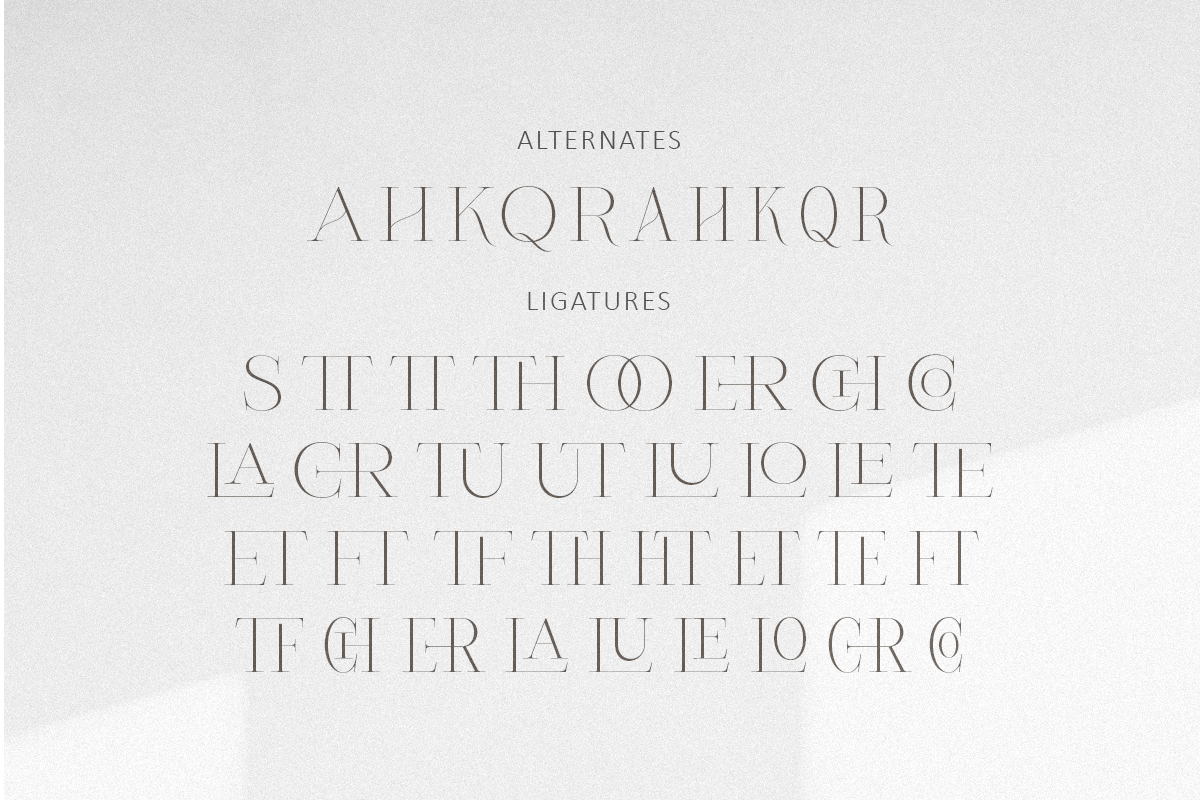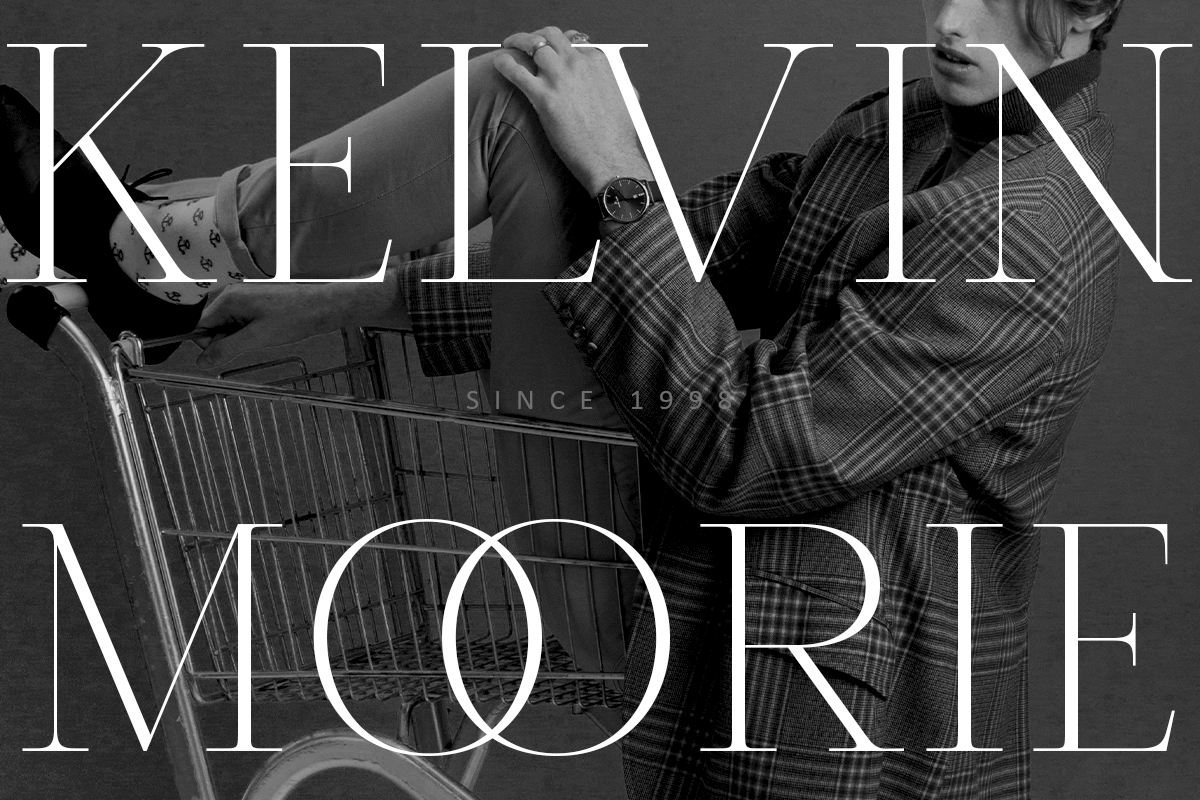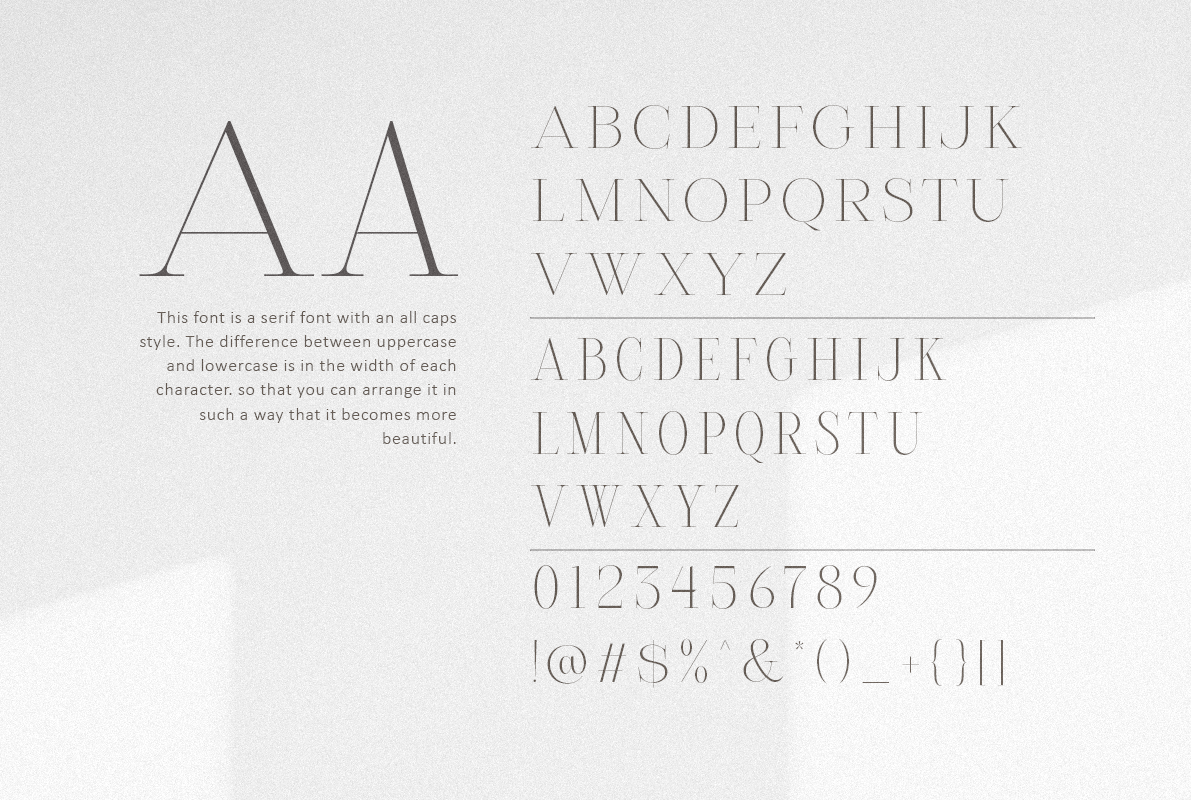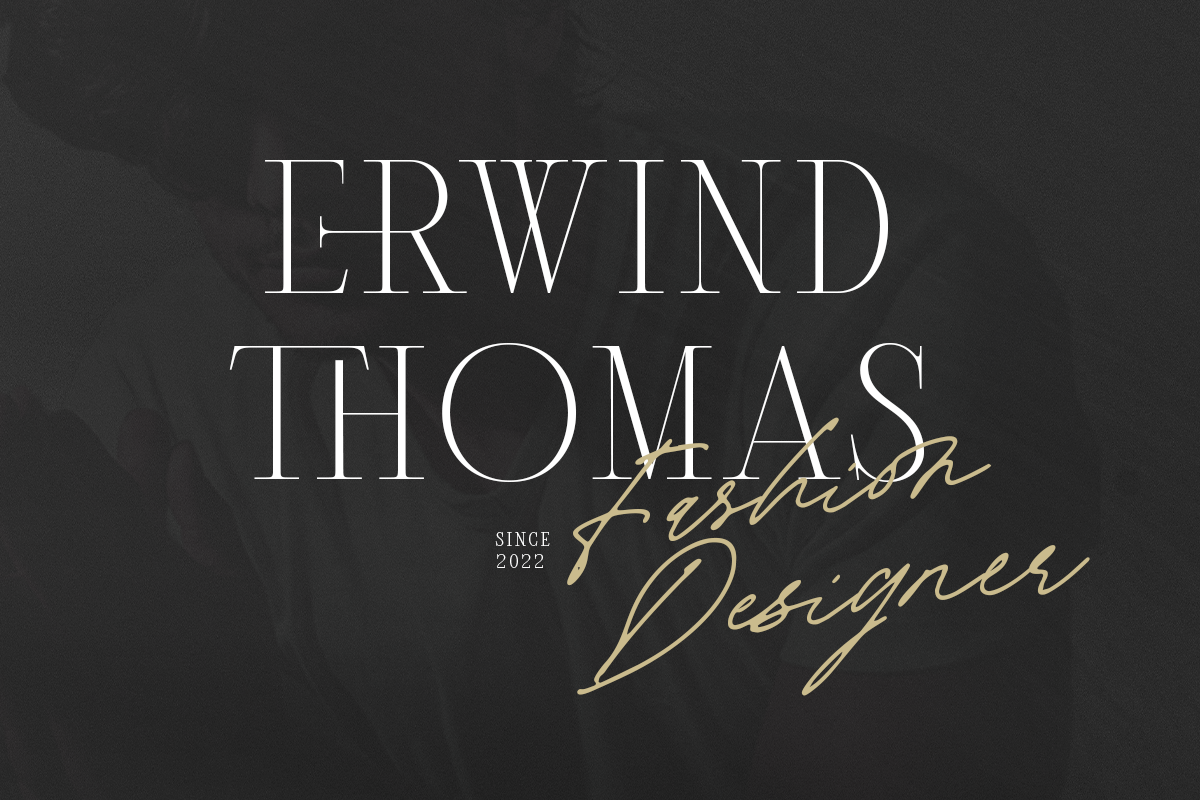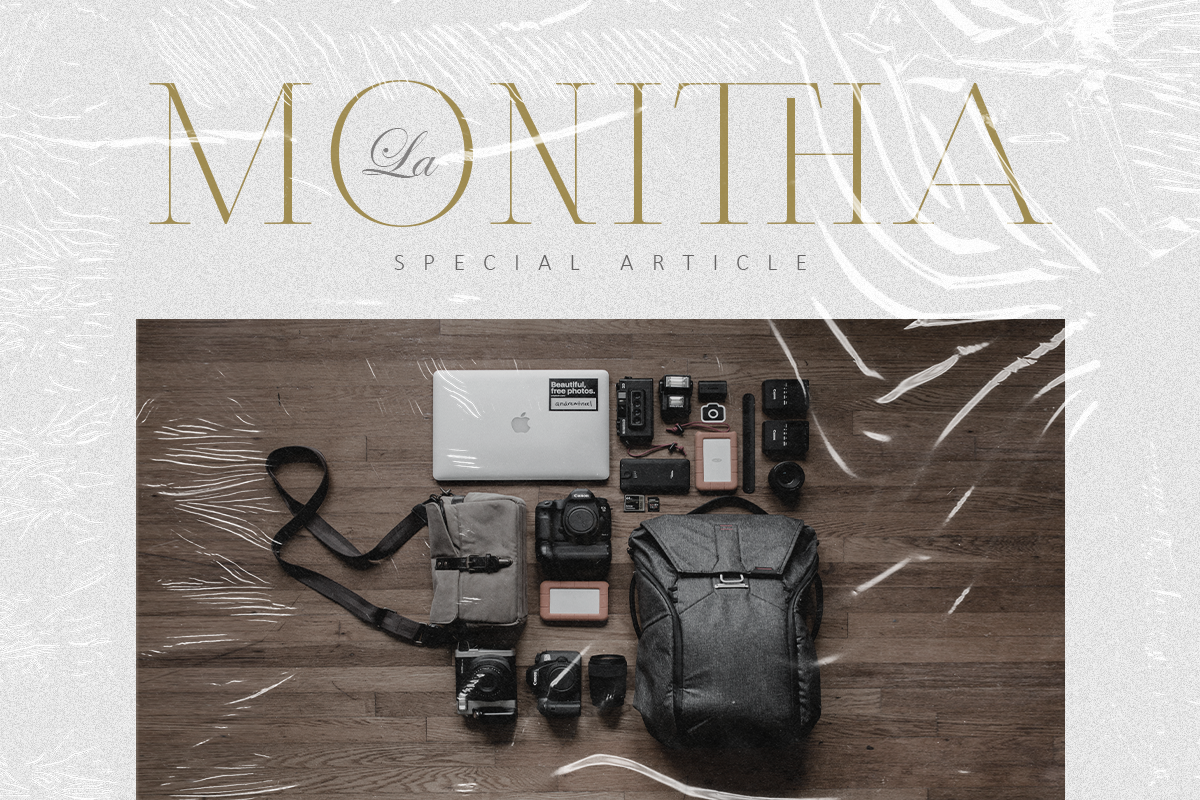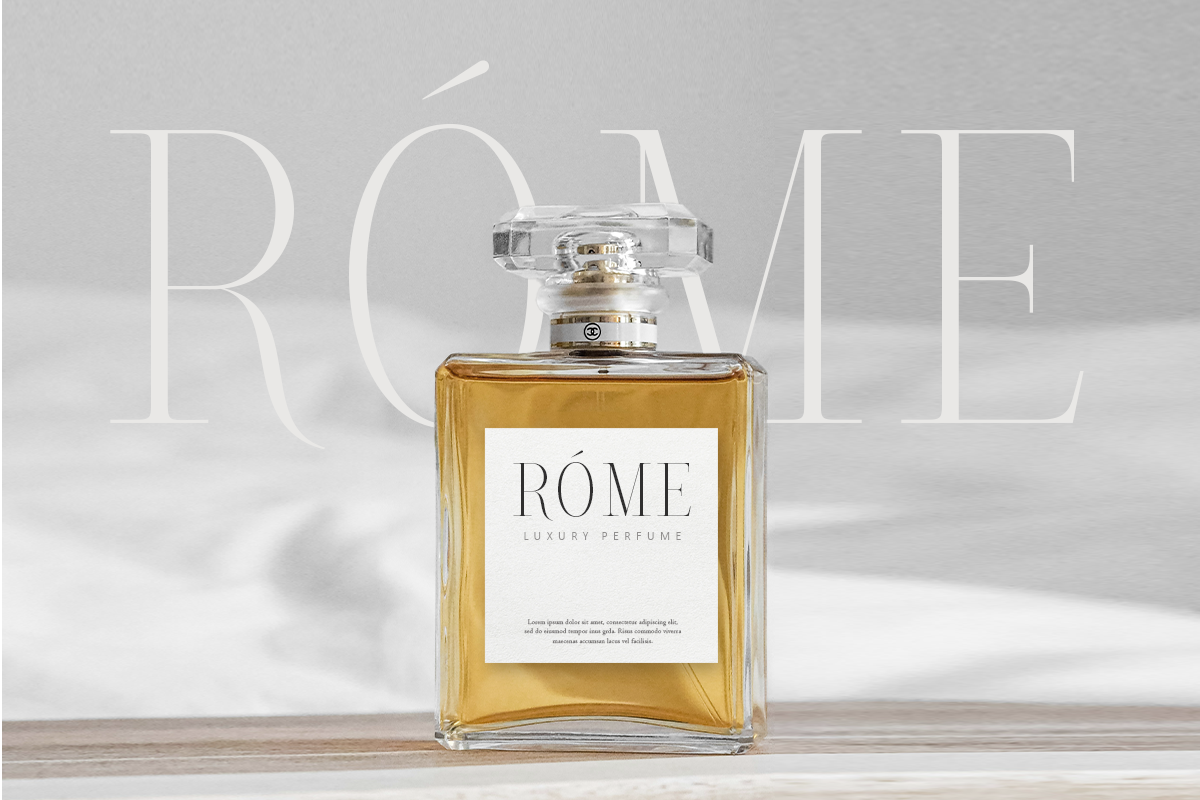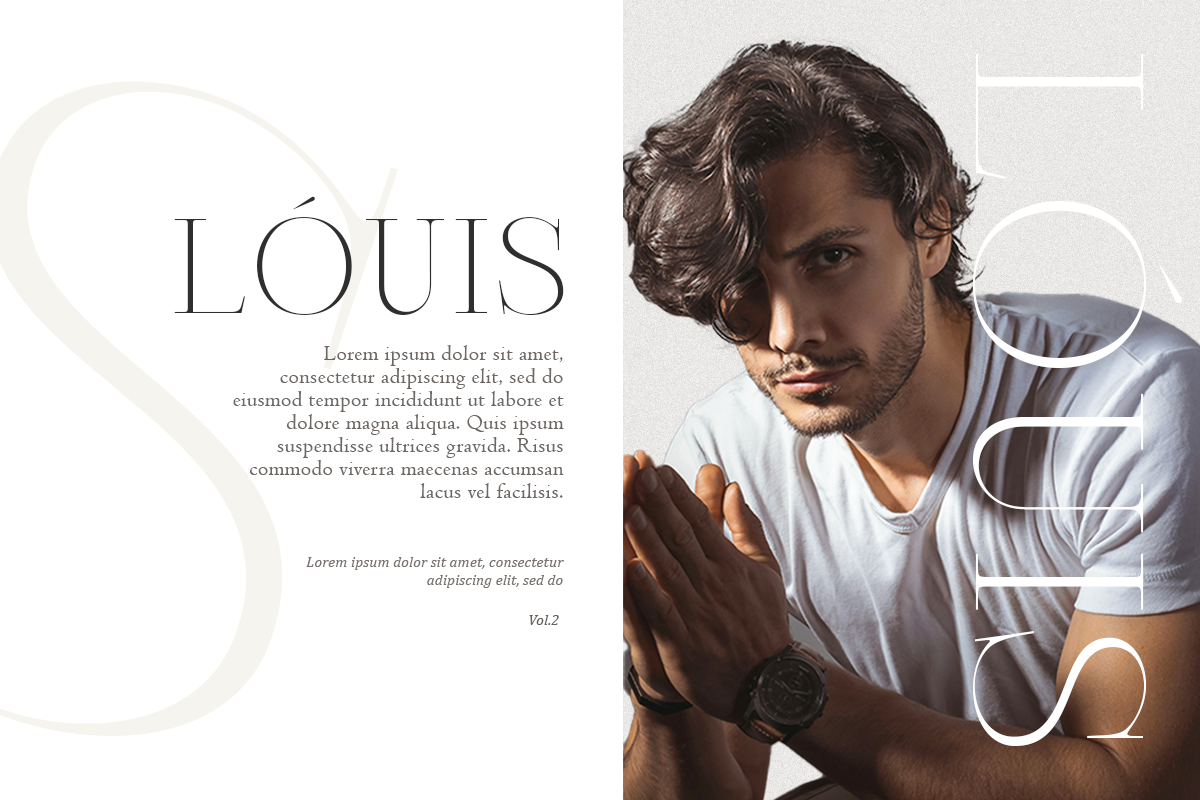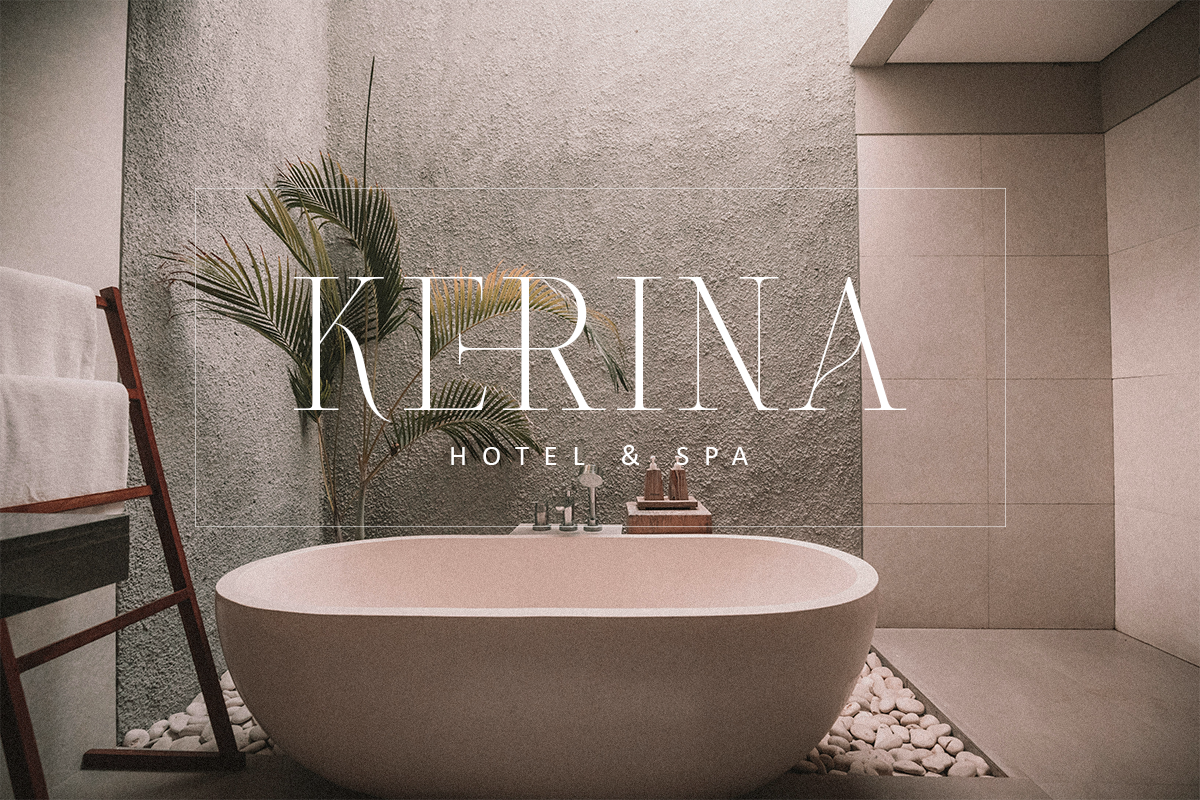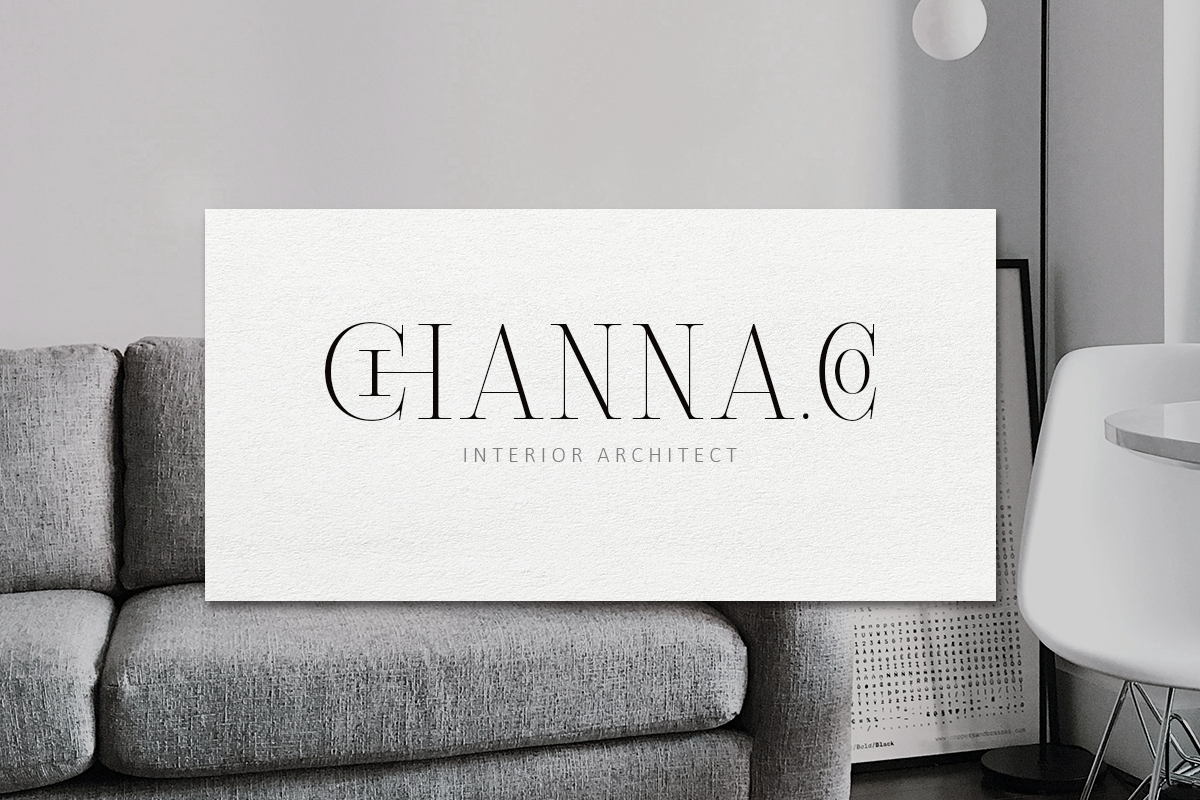
Natoure-All Caps Serif
This font is a unique and beautiful serif font with an all caps style. There are differences between the uppercase and lowercase which you can combine to add to the beauty of your work.
Apart from that, this font also has several alternatives and many ligatures that you can use easily.
The beauty of this font is inspired by beauty and gentleness so it is suitable for design purposes related to fashion, cosmetics, magazines and others.